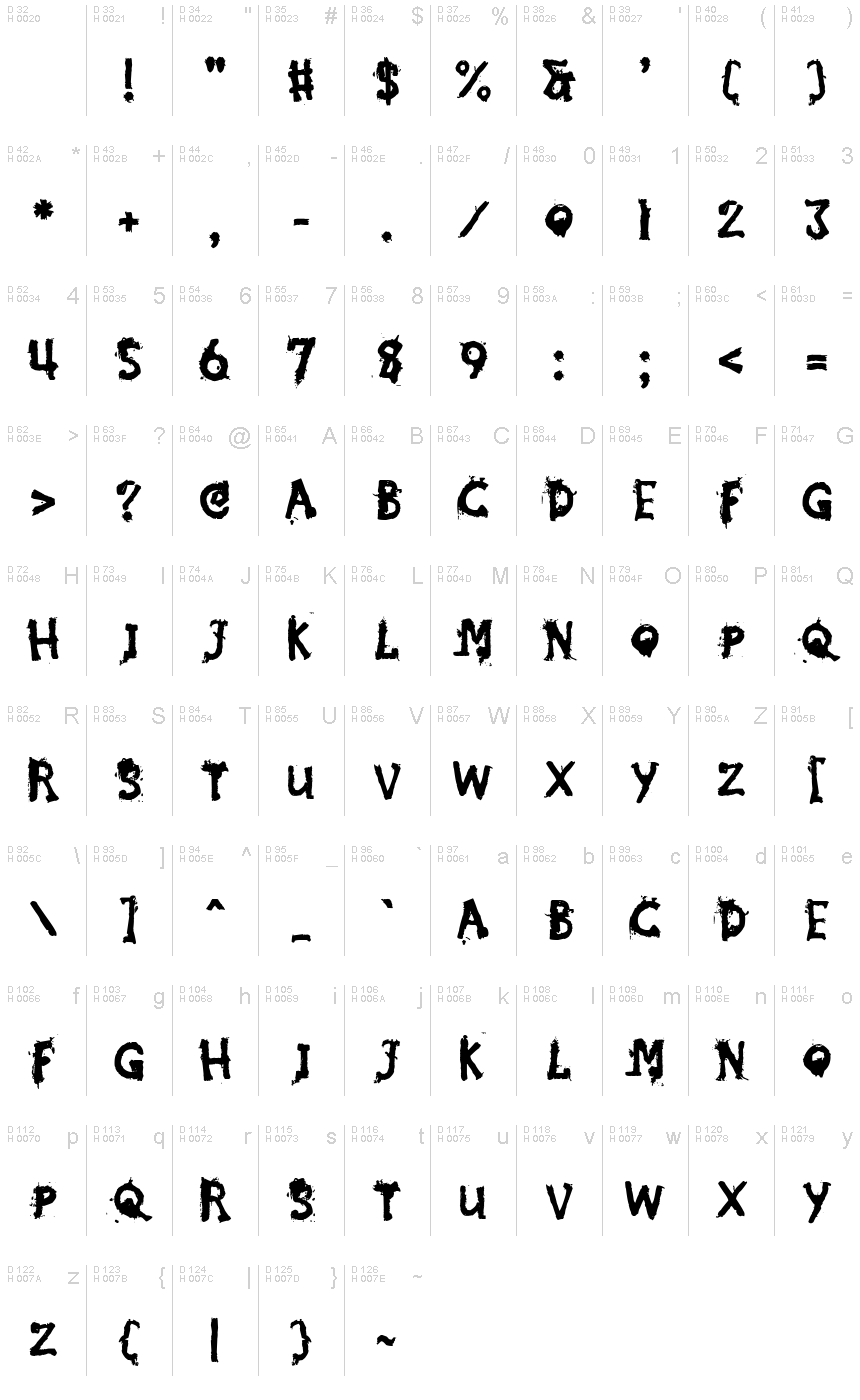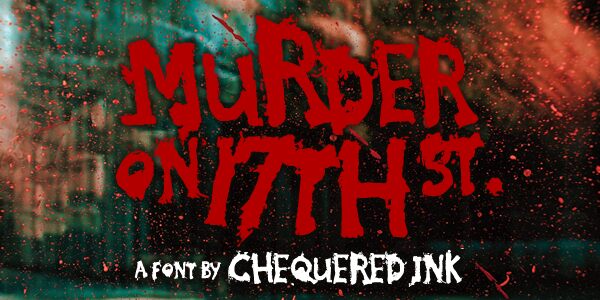
Murder on 17th St.
Murder on 17th St., designed by Chequered Ink, is a display font that drips with tension and suspense. Its jagged contours and splattered ink aesthetic evoke a chilling sense of dread, as if each letter were a clue left at a crime scene. The style is unmistakably scary, making it an ideal choice for projects that require an element of horror or mystery.
This font's stark and erratic form lends itself to creative applications where a touch of the macabre is desired. Think book covers for thrillers, posters for horror movies, Halloween event promotions, or eerie game titles – any context where the goal is to unsettle and captivate the audience with an air of intrigue. Murder on 17th St.'s bold presence ensures it will command attention wherever it's used, setting the perfect tone for tales that are meant to thrill and chill.